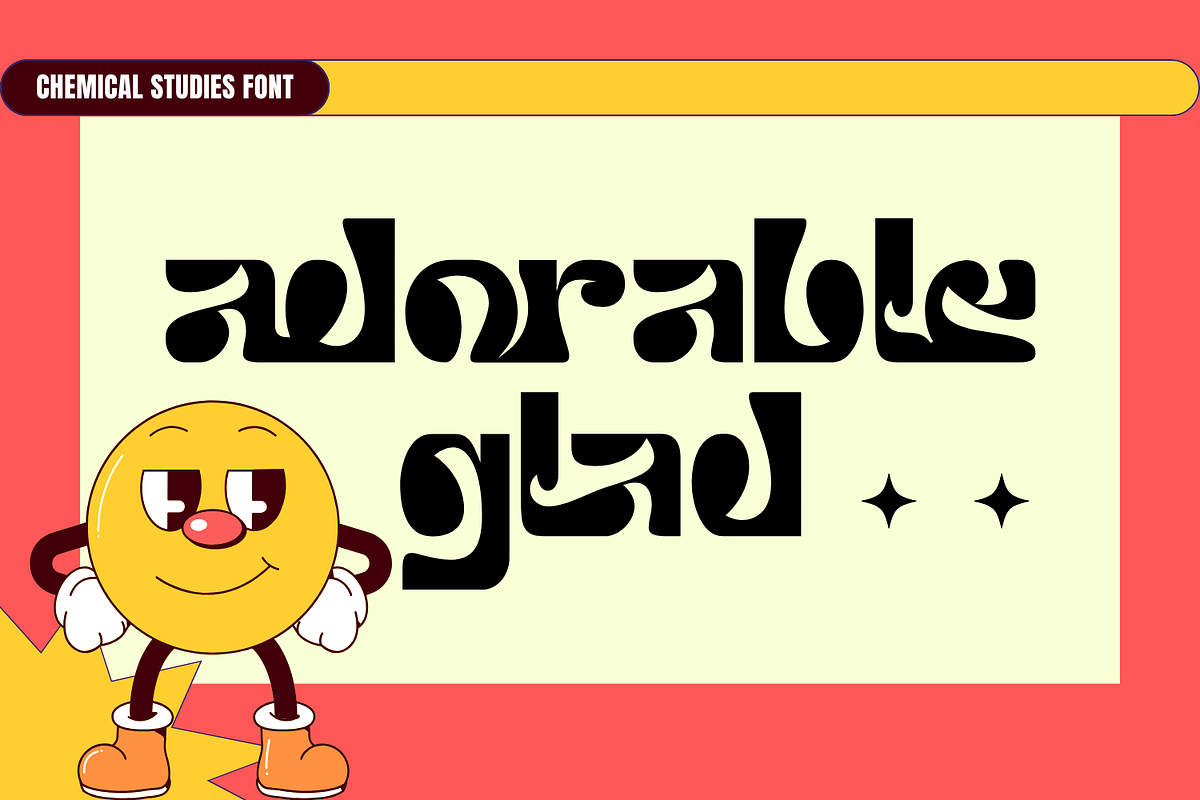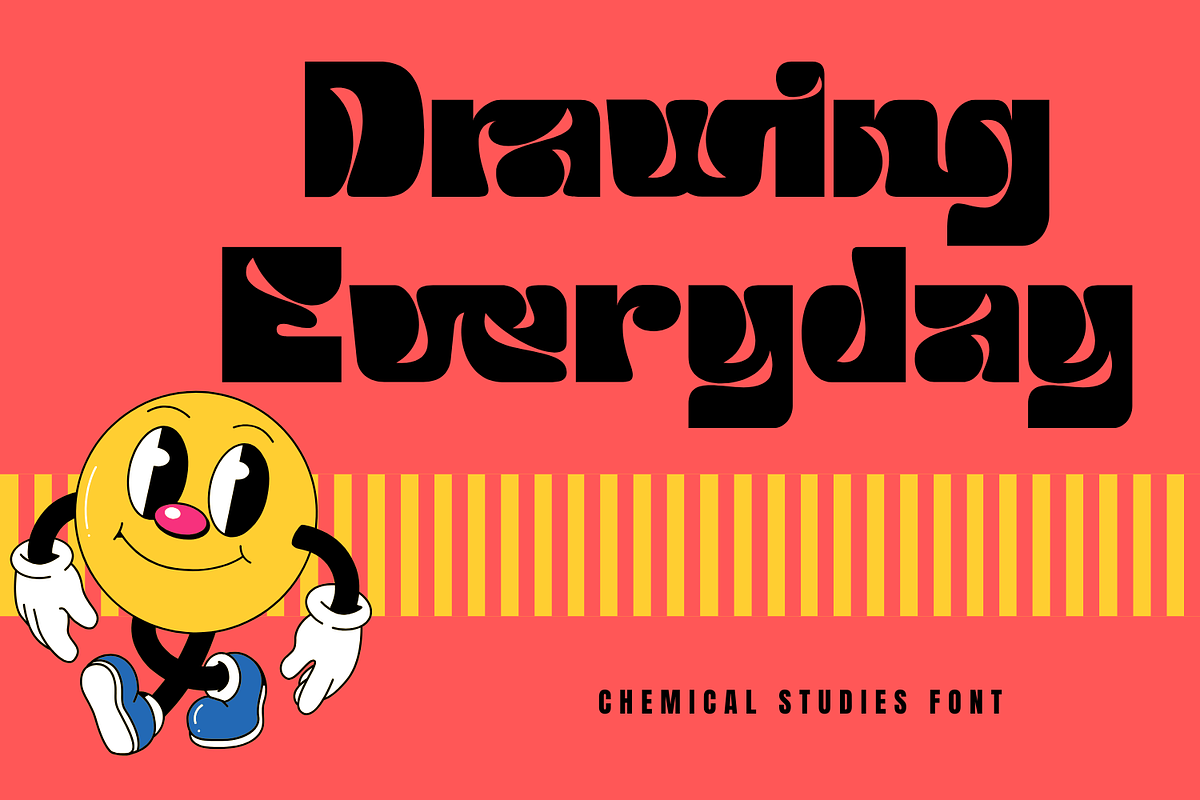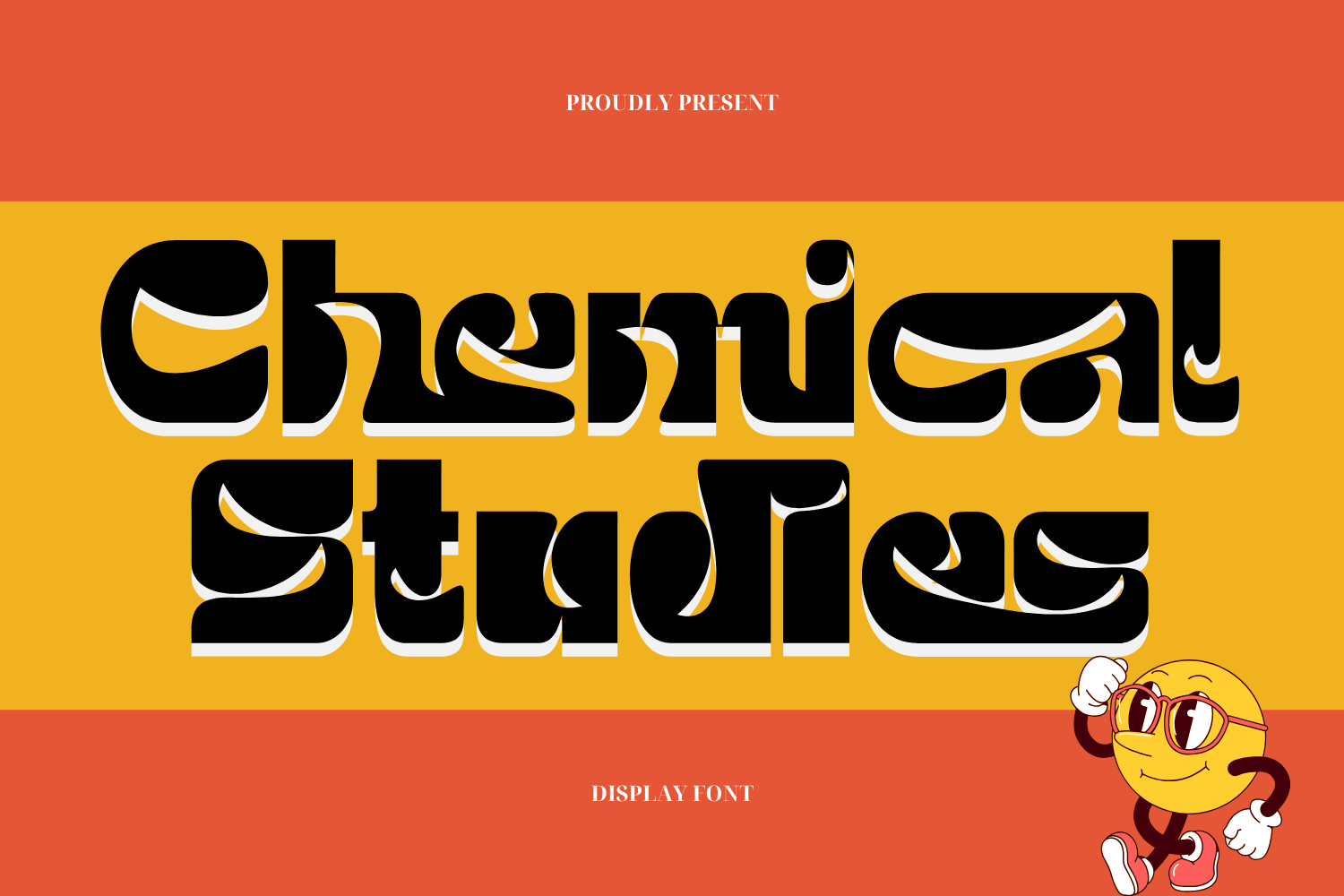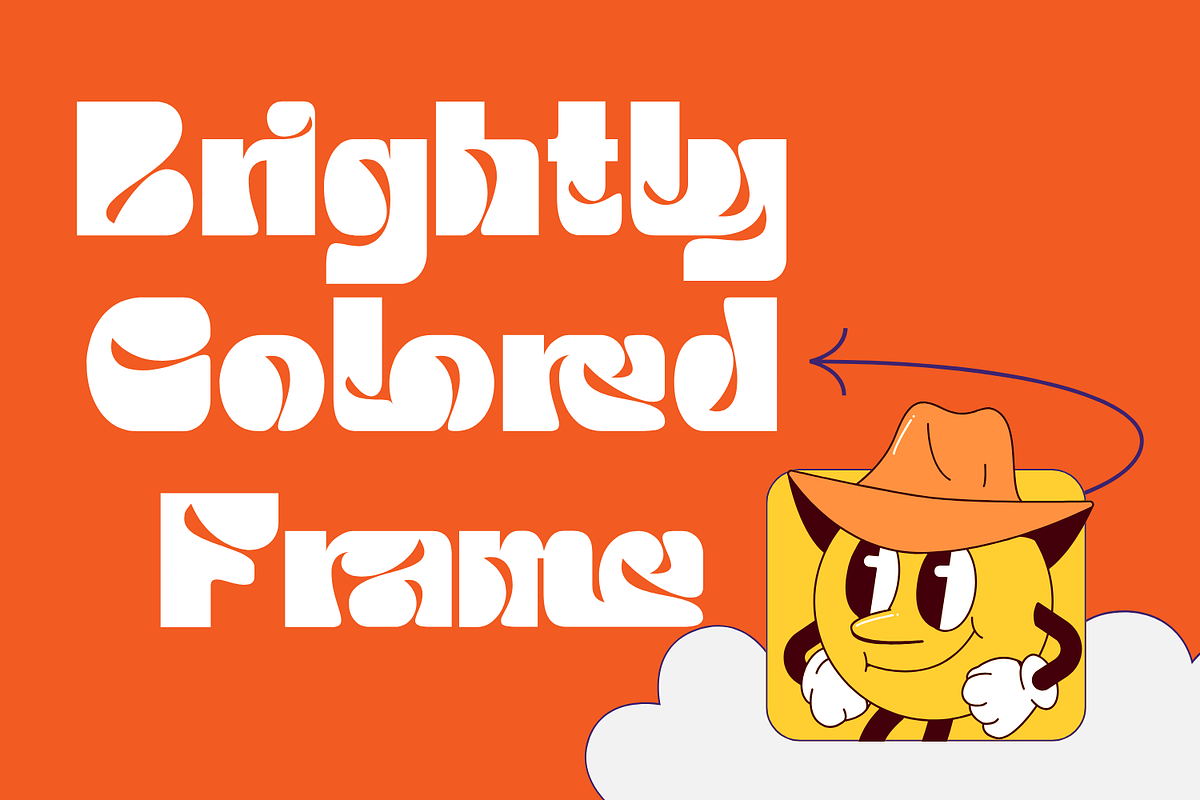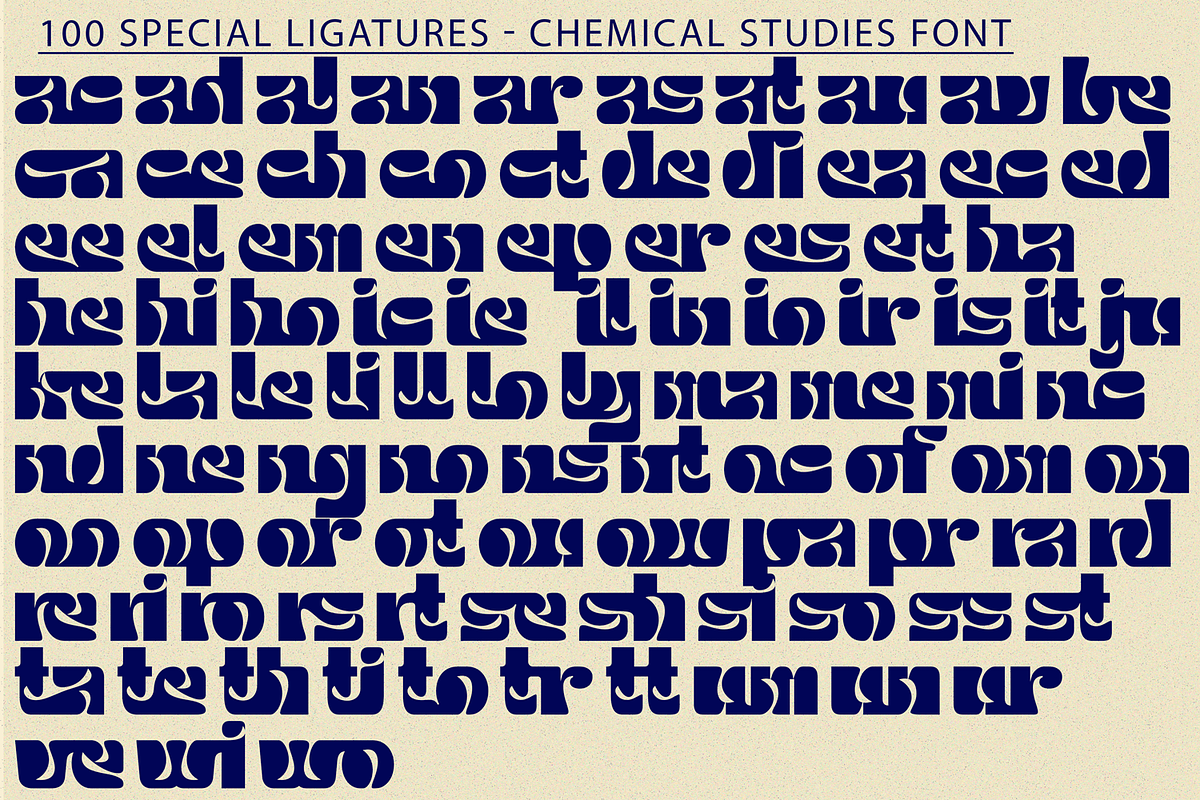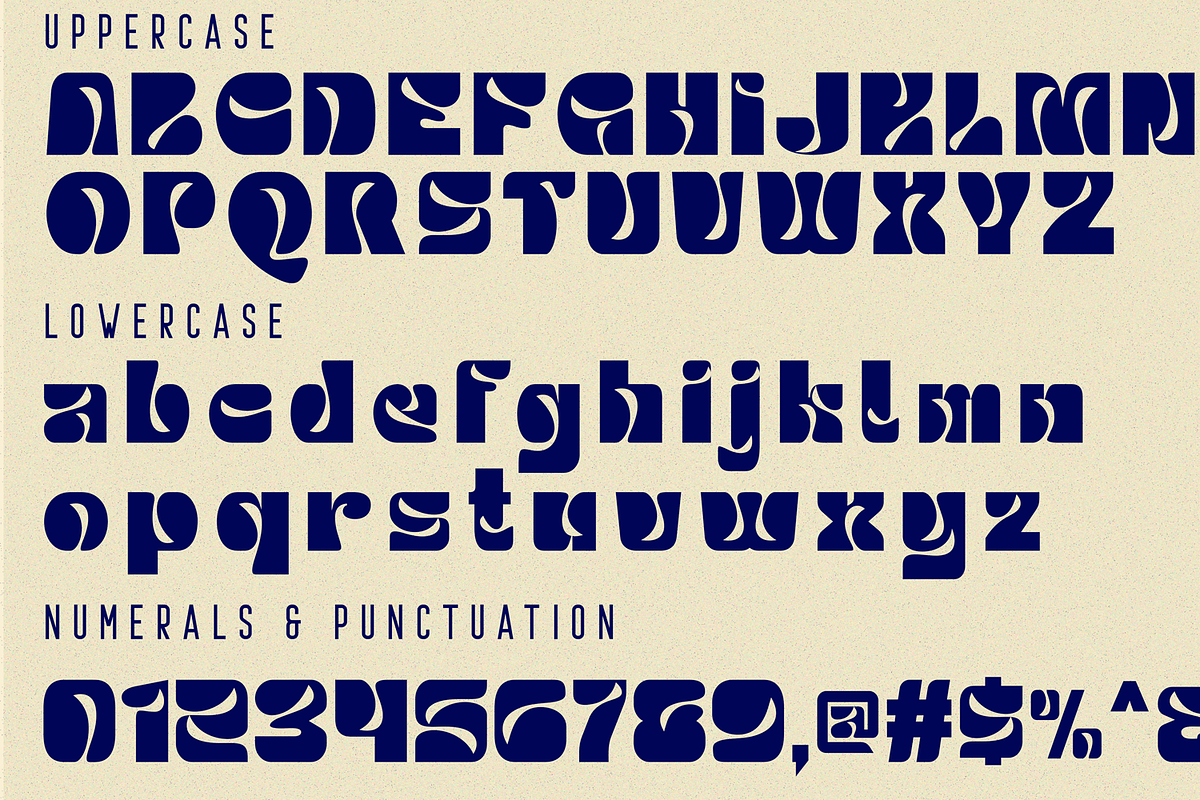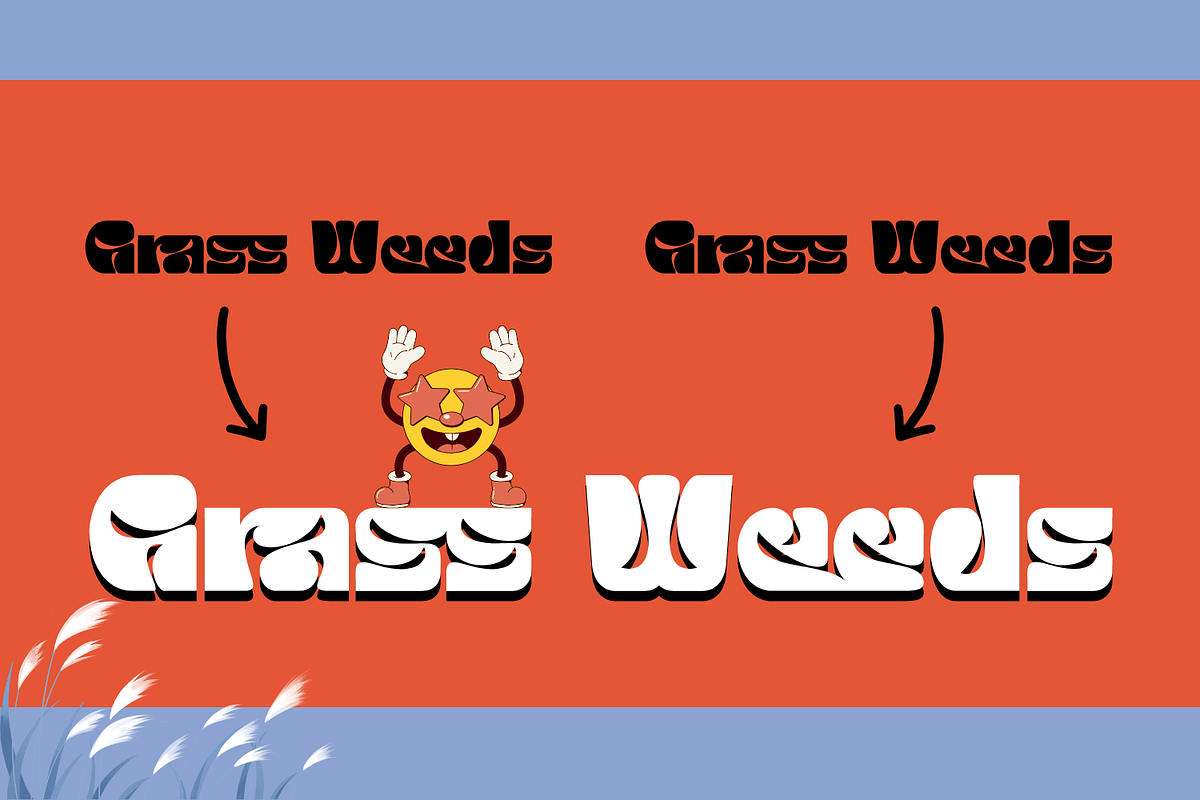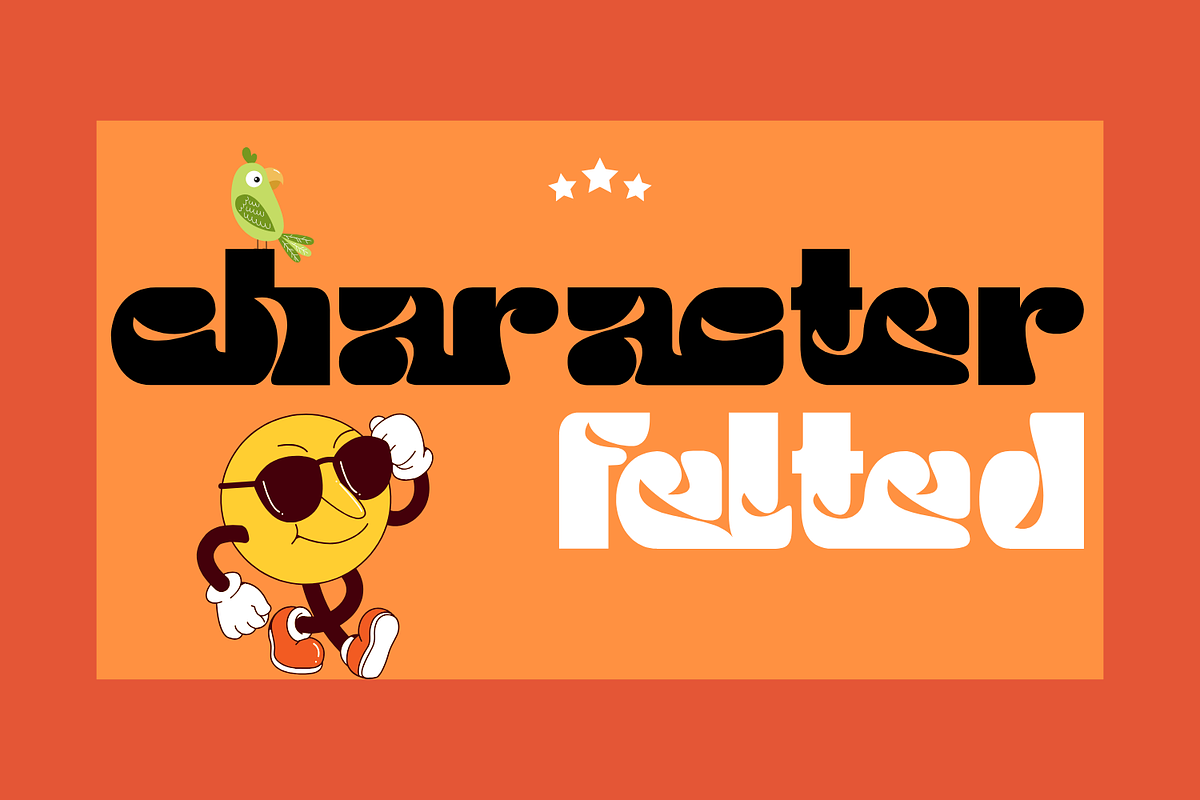
Chemical Studies Font
Chemical Studies Font is a reverse contrast typeface with a modern and clean look. A bold display font made in a rounded style with a fun and playful impression, with inktrap in upper and lower case adding uniqueness to this font. An elegant typeface, it's perfect for corporate identities, websites, publications, titles, books, magazines, business cards, logos, product labels, packaging, or any kind of advertising purpose.
Chemical Studies was built with OpenType features and includes 100 ligatures, alternate, numbers, punctuation, and it also supports other languages.
ac ad al an ar as at au av be ca ce ch co ct de di ea ec ed ee el em en ep er es et fe fo fr ge ha he hi ho ie ic il in io ir is it ju ke la le li ll lo ly ma me mi nc nd ne ng no nt ns oc of om on oo op or ot ou ow pa pr ra rd re ri ro rs rt se sh si so ss st ta te th ti to tr tt um un ur ve wi wo
- Special Ligatures